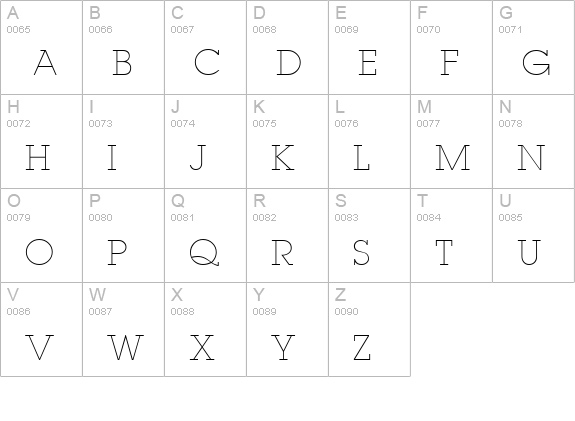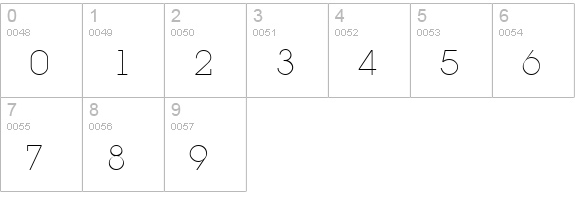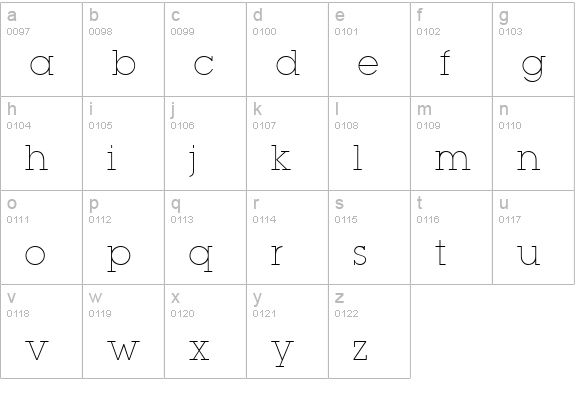
Lapland Light is a refined, elegant variant in the Lapland typeface family \xE2\x80\x94 well suited to elegant body text, refined sub-headings, and luxury branding.
Lapland Light font is a stunningly elegant typeface that exudes a sense of beauty and sophistication. With its delicate and graceful strokes, this font captures the essence of modern design and effortlessly combines it with a touch of classic charm. The beauty of Lapland Light font lies in its versatility. Whether used in headlines, logos, or body text, this font adds a touch of elegance and professionalism to any project. Its clean lines and balanced proportions make it easy to read, ensuring that your message is conveyed clearly and effectively. Lapland Light font is freely available to download at FontsMarket.com. This means that you can easily access this remarkable font without any hassle. The convenience of having a high-quality font at your fingertips, free of charge, allows you to unleash your creativity and explore endless design possibilities. With Lapland Light font, you can create visually captivating designs that leave a lasting impression. Whether you are designing a website, crafting a brochure, or working on a personal project, this font is sure to elevate your work to new heights. Don't miss out on the opportunity to enhance your design projects with the timeless beauty of Lapland Light font. Download it for free at FontsMarket.com and let your creativity soar.